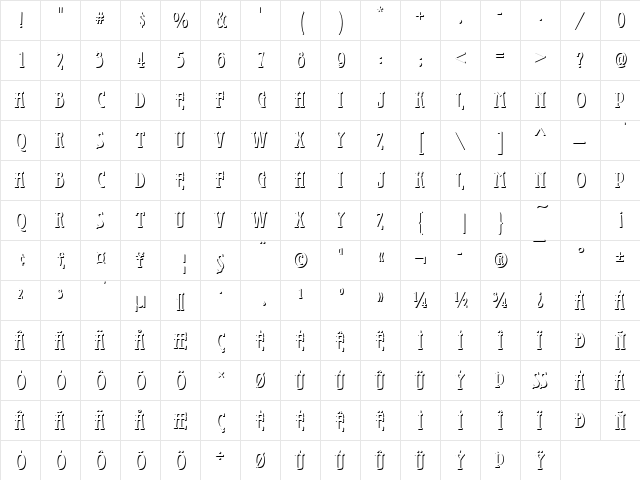
GaladrielOnlShaD Regular Font Preview
GaladrielOnlShaD Regular
GaladrielOnlShaD Regular Font Details
Design Context for GaladrielOnlShaD Typeface
GaladrielOnlShaD is a composed and adaptable typeface that performs quietly and consistently across a wide range of design contexts.